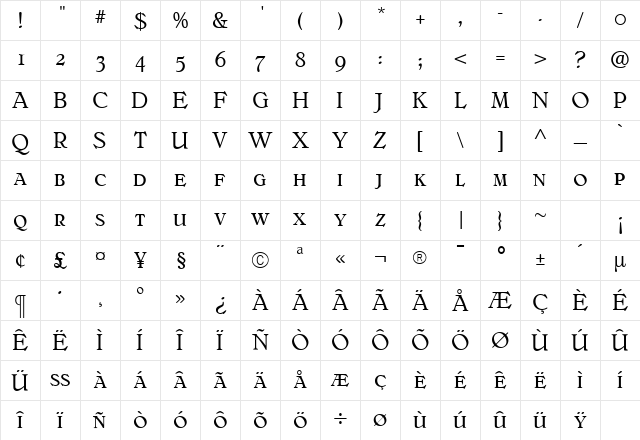
Complete BelliniOriginalExpert Regular glyph index. Displaying only characters natively supported by BelliniOriginalExpert Regular font.
BelliniOriginalExpert is a composed and adaptable typeface that performs quietly and consistently across a wide range of design contexts.